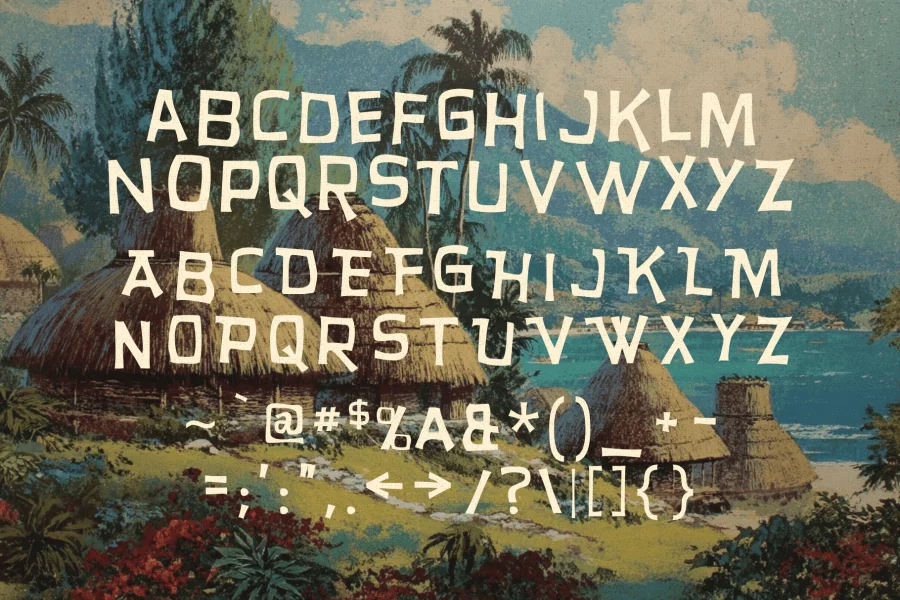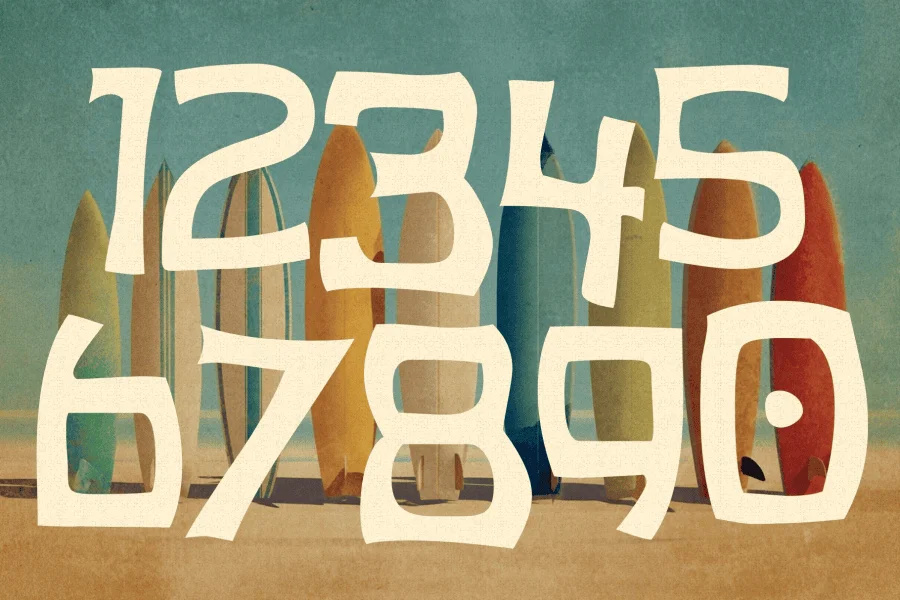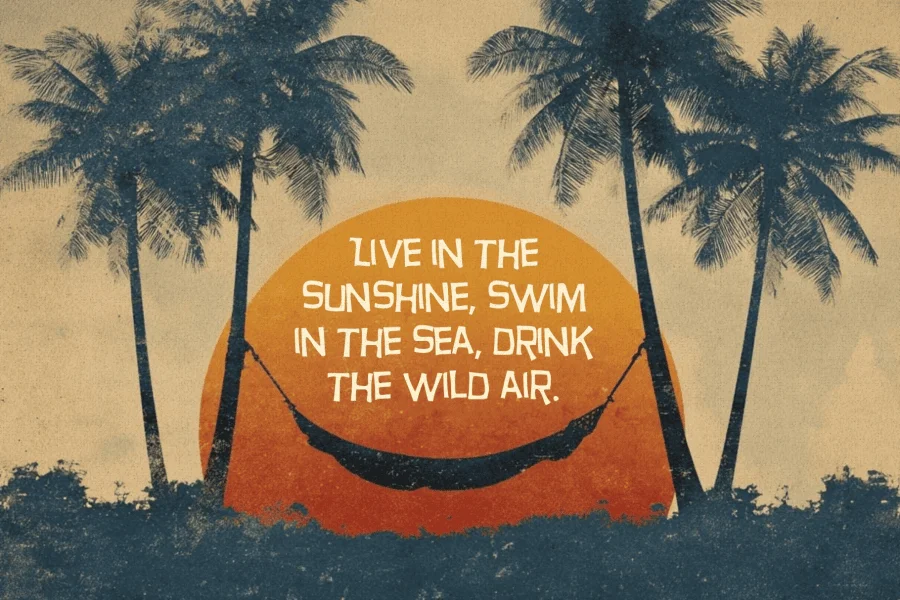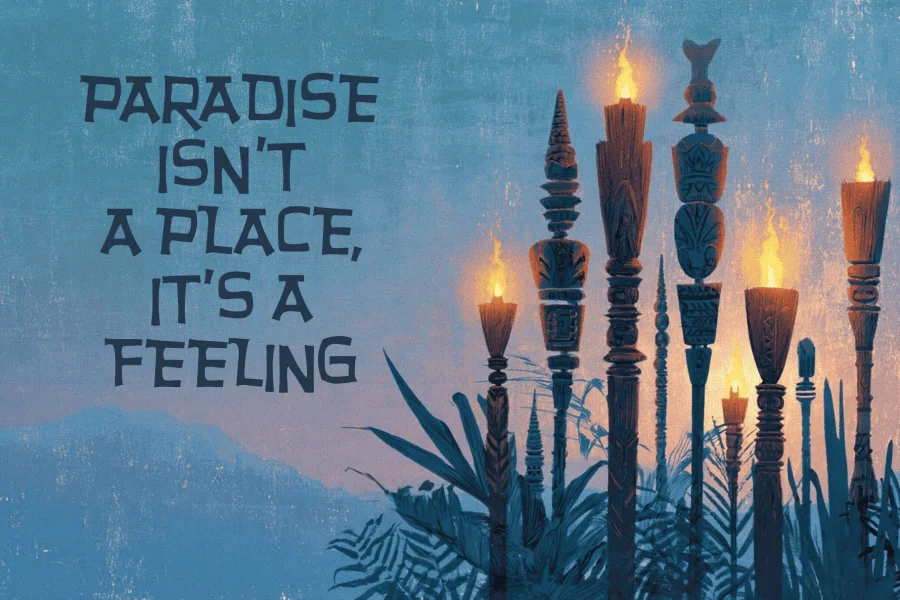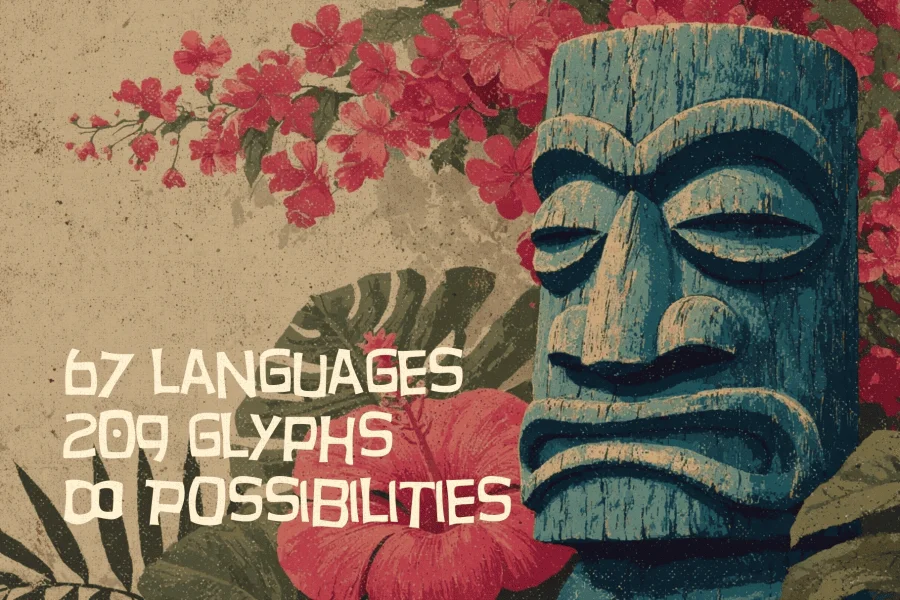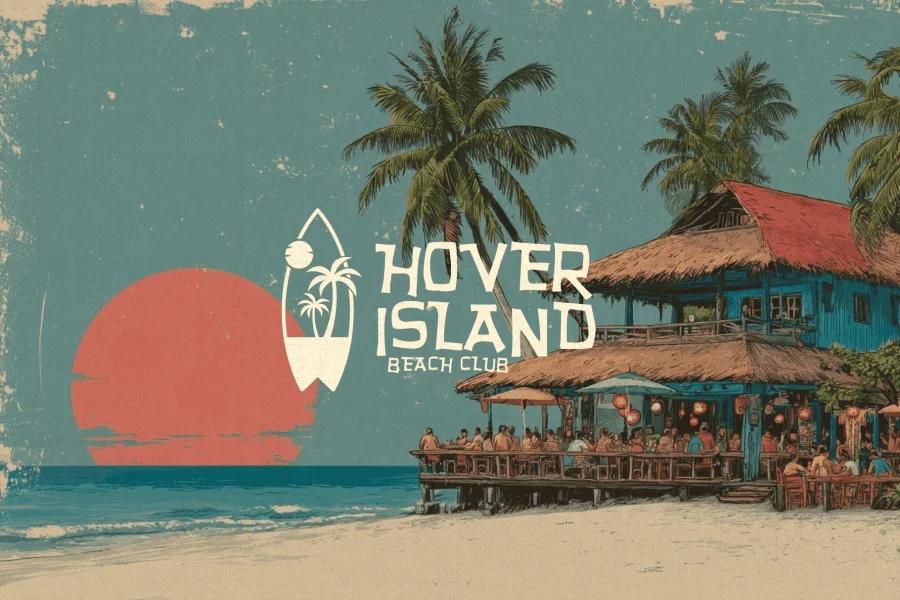
Say hello to Aloha Pop, the ultimate handmade typeface that channels the spirit of the tropics with every curve and stroke. Inspired by vintage tiki aesthetics, Hawaiian charm, and the carefree energy of summer, this bold and playful font is your passport to paradise.
Whether you're designing for beach parties, surf brands, travel blogs, or tropical-themed packaging, Aloha Pop brings the sunshine with its vibrant personality and handcrafted warmth.
Features:
- 209 unique glyphs crafted with love and island flair
- Supports 67 languages for global aloha vibes
- Perfect for summer campaigns, tropical menus, beachwear branding, and event posters
- Handmade texture adds a natural, organic feel to every letter
- Works beautifully in logos, headlines, social media graphics, and print
With its breezy curves and sun-kissed style, Aloha Pop turns any project into a celebration of tropical living. Let your creativity ride the waves.